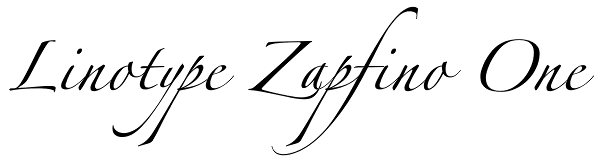
Linotype Zapfino
Today’s digital font technology has allowed renowned type designer Hermann Zapf to realise a dream he first had more than fifty years ago: to create a fully calligraphic typeface. Zapf began work on Zapfino in 1993, in technical collaboration with...